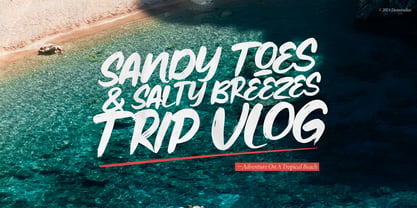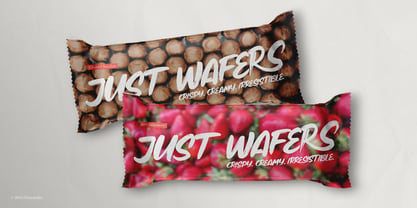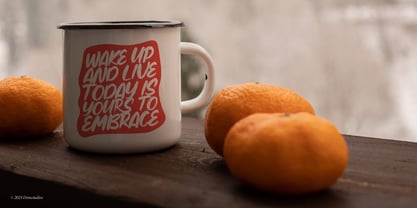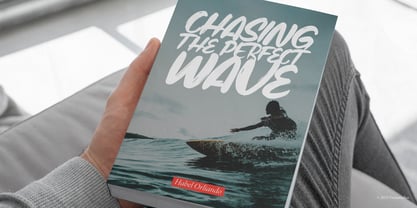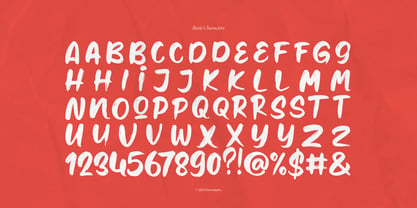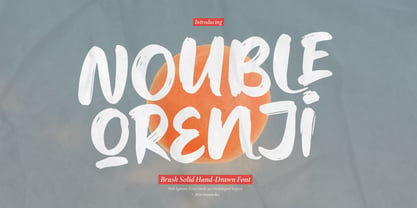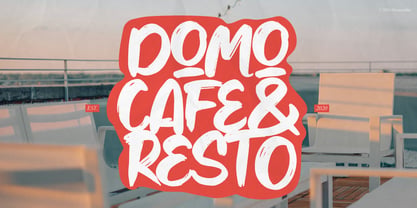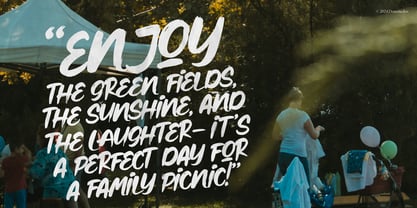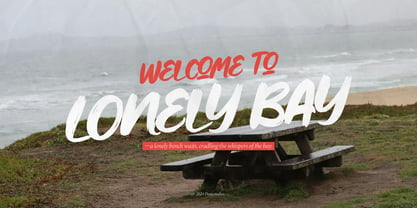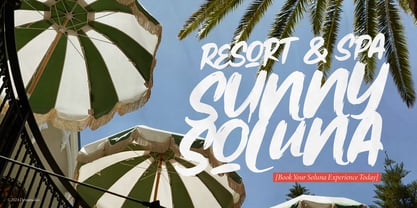
Nouble Orenji
The Nouble Orenji Font Family was designed by Dede Nugraha and published by Denustudio. Nouble Orenji contains 2 styles and family package options. More about this family
Nouble Orenji | Solid Hand Drawn Font, from Denustudios, suitable for any projects such as: logos, branding projects, homeware designs, product packaging, mugs, quotes, posters, shopping bags, t-shirts, book covers, name card, invitation cards, greeting cards, label, photography, watermark, special events, and all your other lovely projects that need a Solid Hand Drawn Font taste.
• Regular and Italic
• Alternate and Ligature
• Fonts include multilingual support